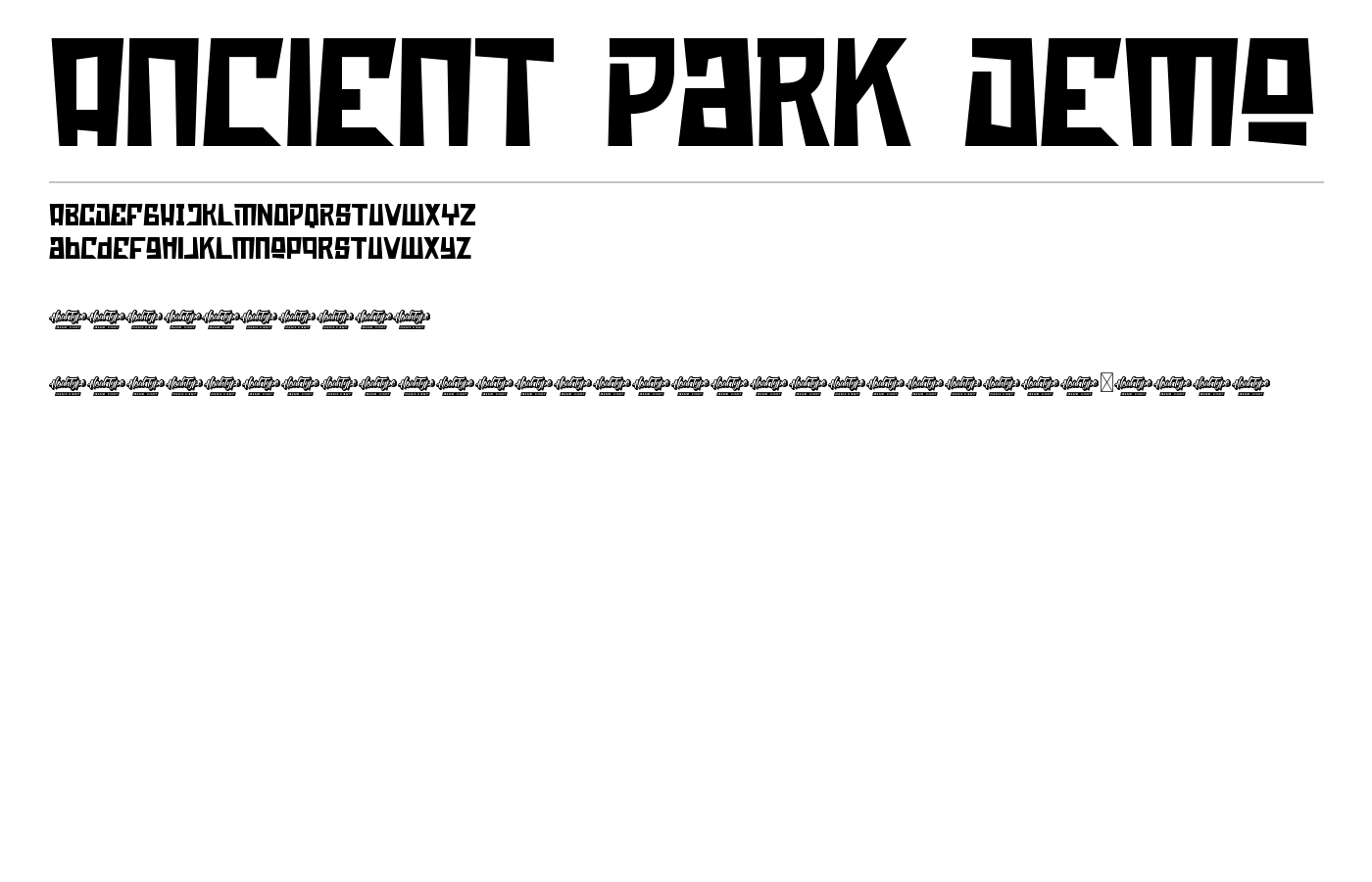
Ancient Park Demo is a bold, condensed sans serif font featuring uneven, blocky letterforms that evoke a rugged, tribal, or ancient carved-stone feel. Its high x-height combined with quirky, distorted shapes gives it a strong visual impact, making it ideal for edgy headlines, logos, or designs seeking a raw, adventurous, or nostalgic vibe. This font stands out best in creative branding and display uses where its distinctive personality can capture attention and convey bold originality.
Ancient Park Demo Font